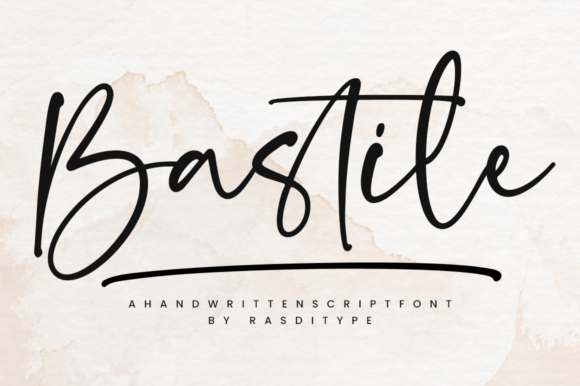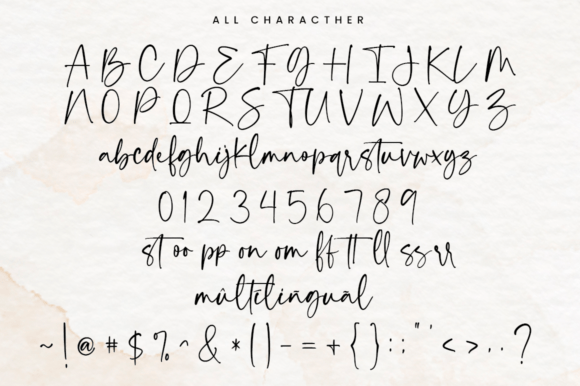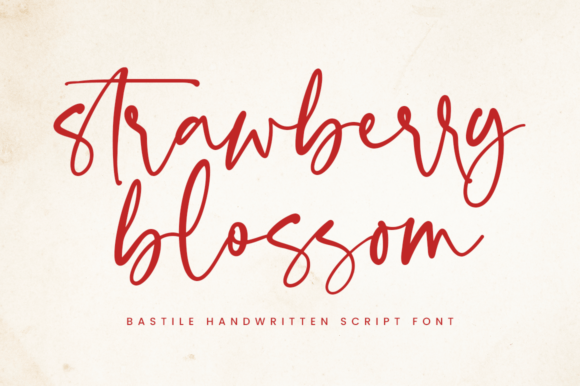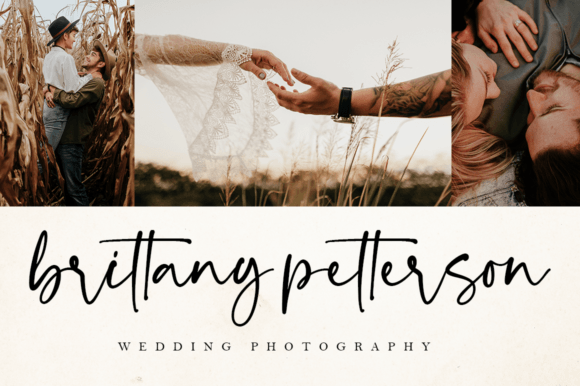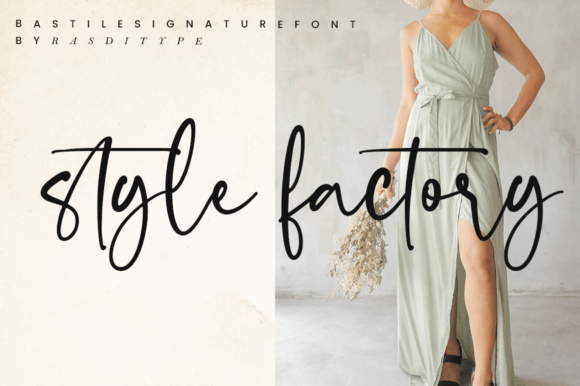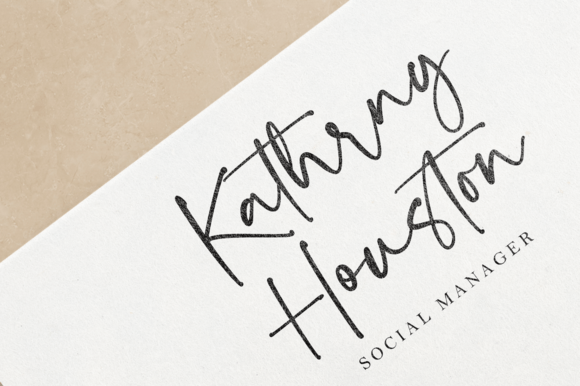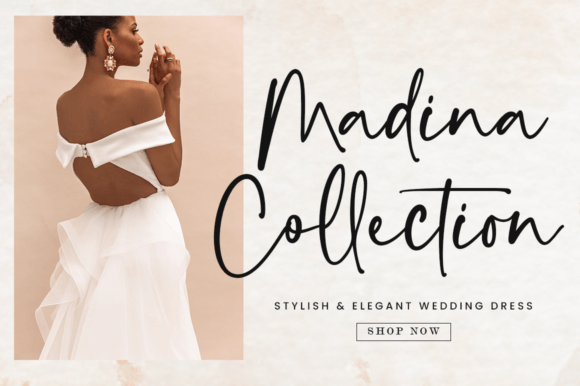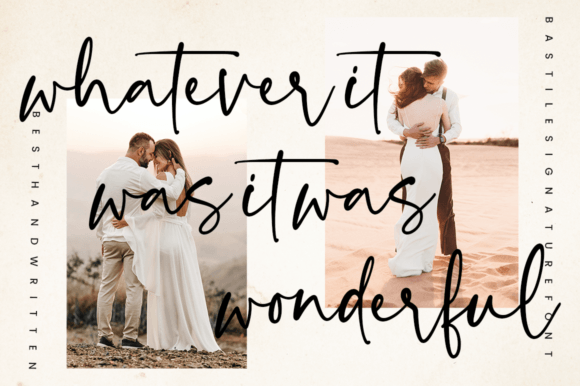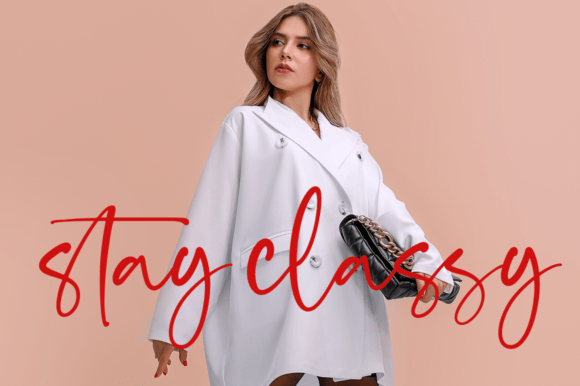
Bastile Font
About Bastile Font
**Bastile** is a delightful and whimsical script font that adds a touch of playfulness and informality to your design projects. This font’s distinctive style is inspired by loosely handwritten text, featuring a charmingly messy and whimsical appearance. It’s designed to infuse a sense of fun and creativity into your light-hearted projects, making it an excellent choice for handwritten notes, greeting cards, packaging, and fun branding initiatives.
The font’s casual and handwritten appearance is characterized by its irregular and playful letterforms. It captures the essence of informal writing, giving your designs a relaxed and approachable vibe. Whether you’re crafting handwritten notes with a personal touch, designing cheerful greeting cards, or adding a whimsical twist to your packaging, **Bastile** brings a unique and lively charm to your creations.
**Bastile** is versatile and adaptable to various design contexts, making it suitable for both digital and print applications. Its informal and playful nature ensures that your projects maintain a sense of character and authenticity.
What makes **Bastile** stand out is its ability to inject a sense of fun and spontaneity into your designs. It invites your audience to engage with your content in a light-hearted and enjoyable way, creating a memorable and joyful experience. With **Bastile** as part of your creative toolkit, you have the means to craft designs that resonate with positivity and creativity.
In conclusion, **Bastile** is a whimsical script font that brings a playful and informal touch to your design projects. Embrace its messy and lively style, and let it inspire you to create cheerful and memorable designs that radiate positivity. With **Bastile** at your disposal, your creative possibilities are expansive, allowing you to craft imaginative and distinctive works of art through its charming handwritten typography.